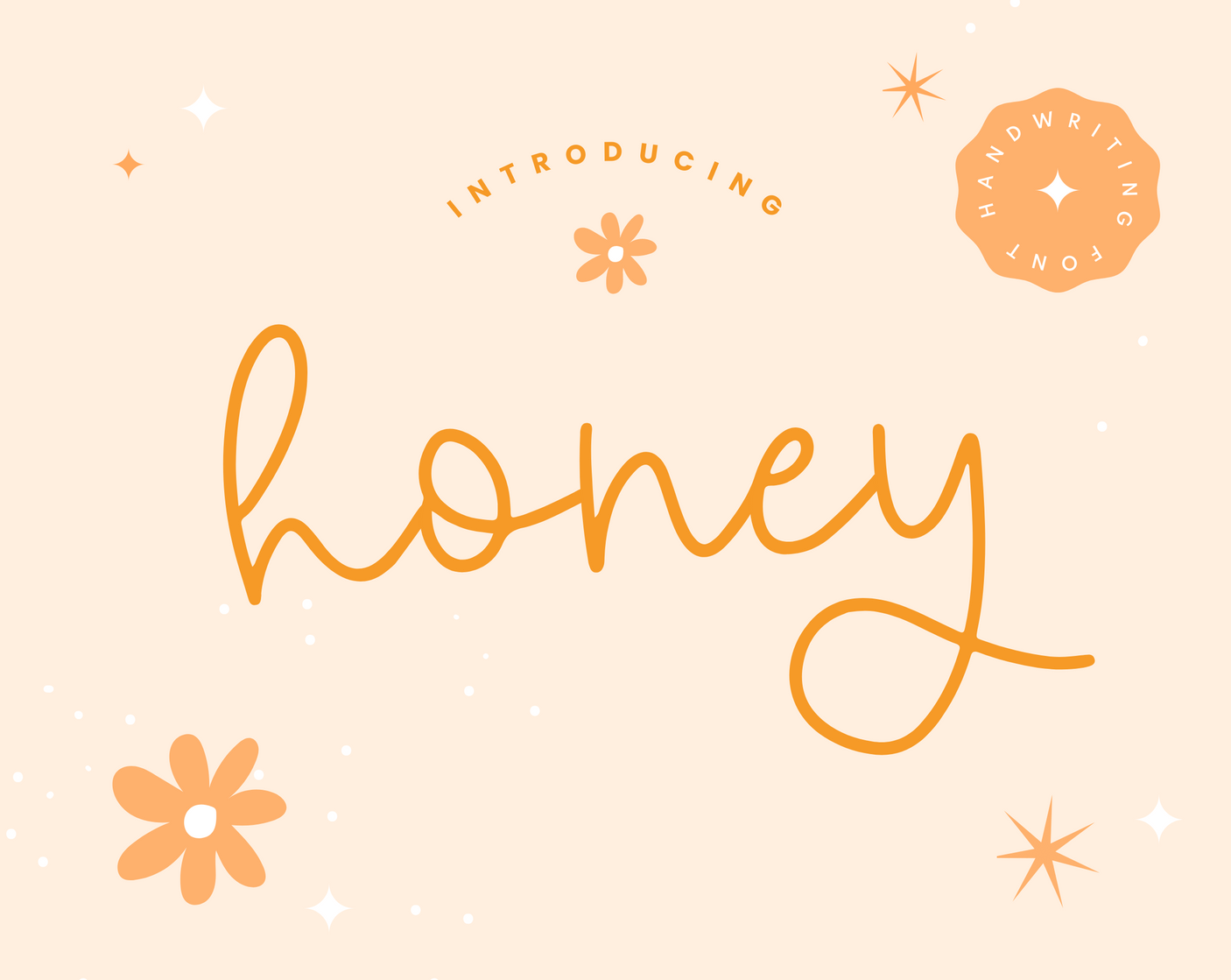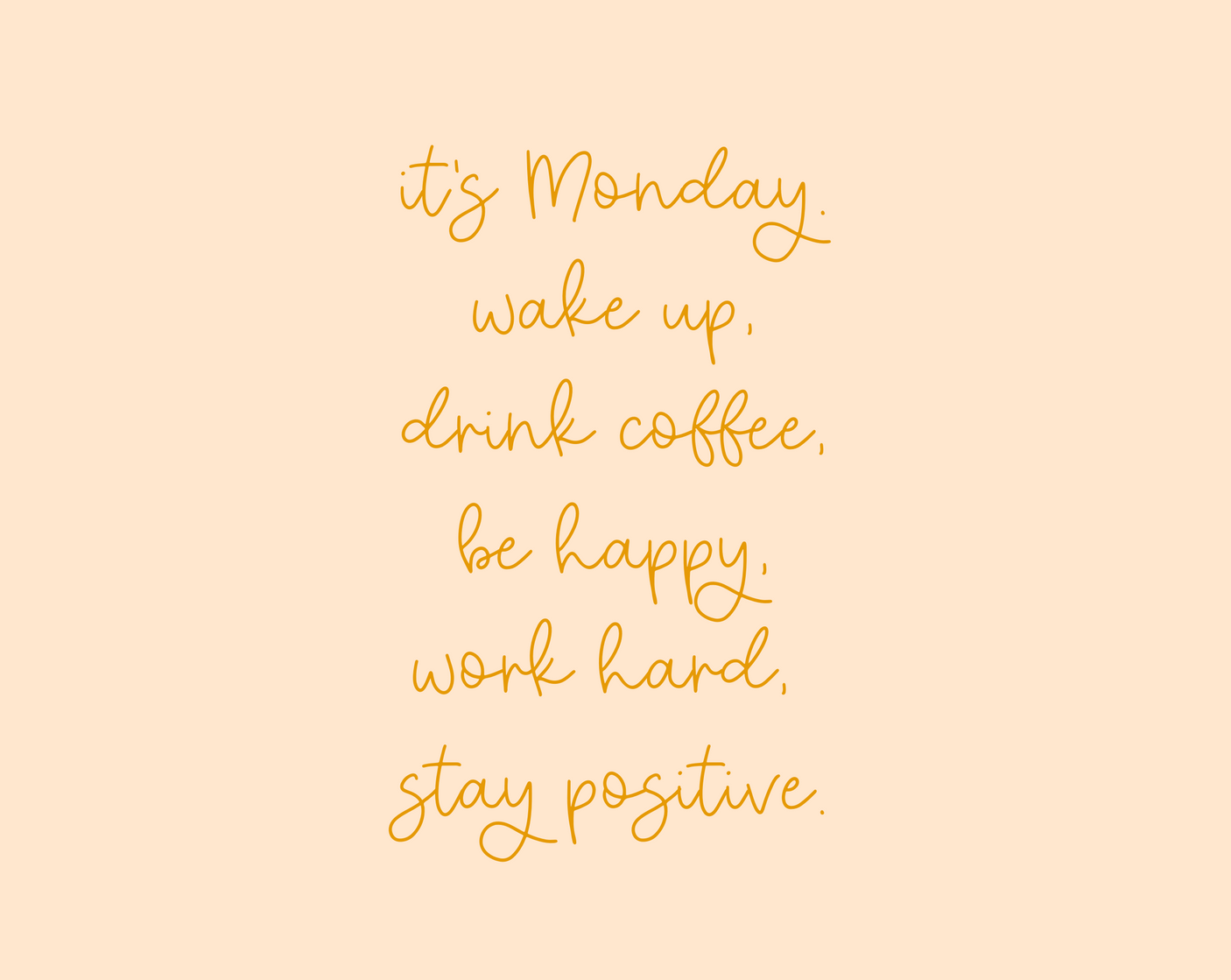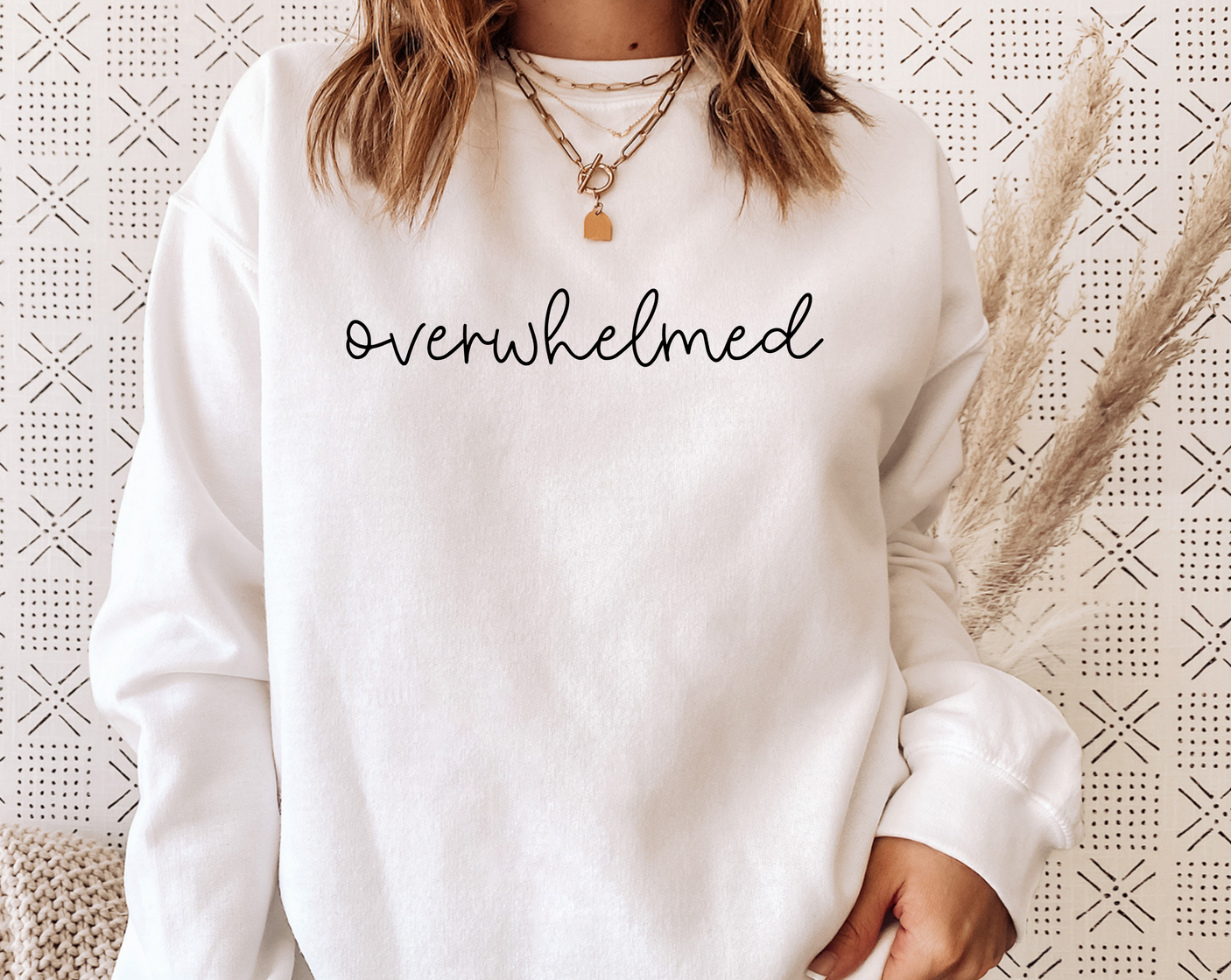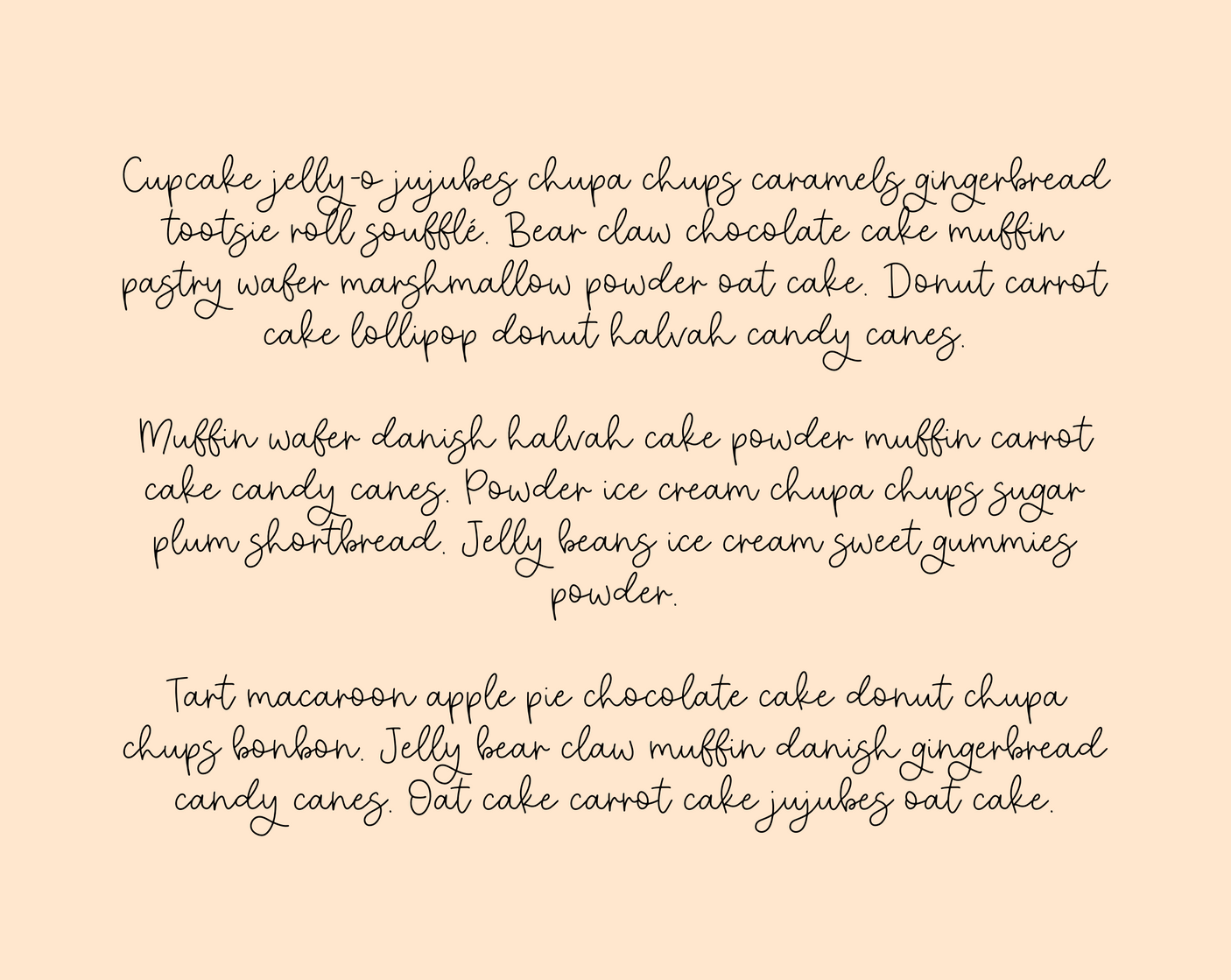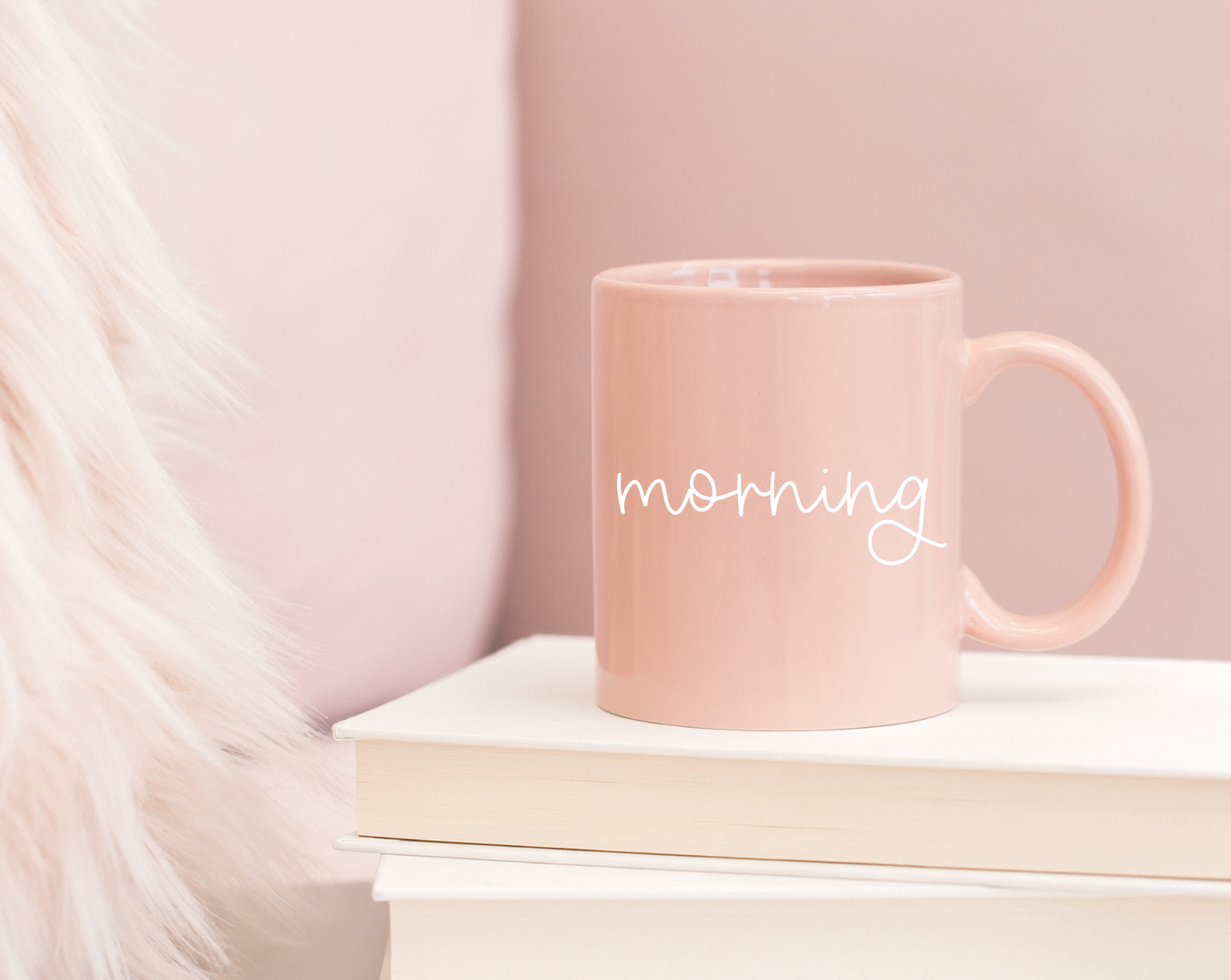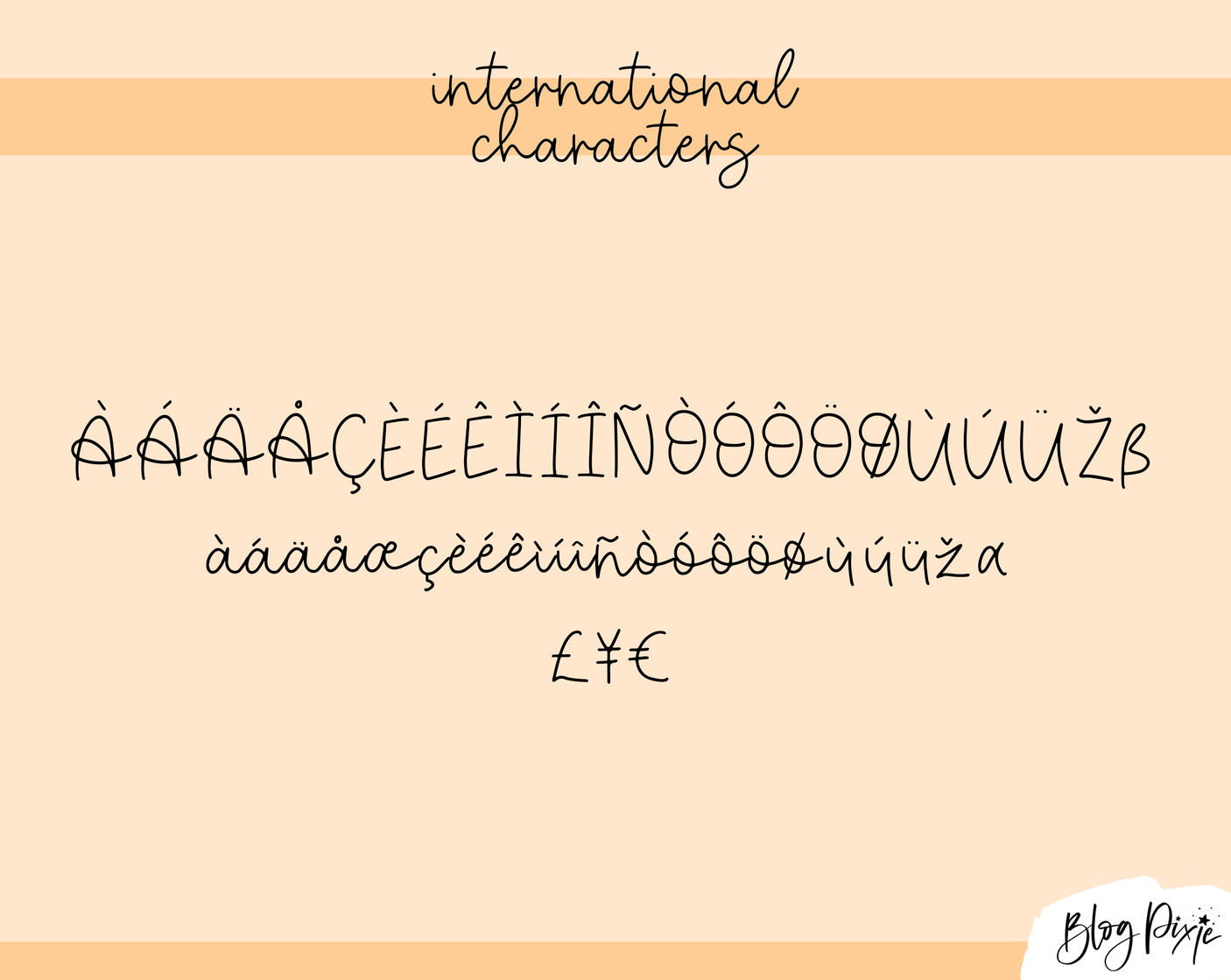
Honey Font
Handwriting font for your iPad planner called Honey. This font can be used for Cricut, Procreate, Goodnotes, Photoshop, Canva and more. It’s a cute, bouncy handwritten cursive font for digital planning, note-taking, logos, crafty work and digital projects.